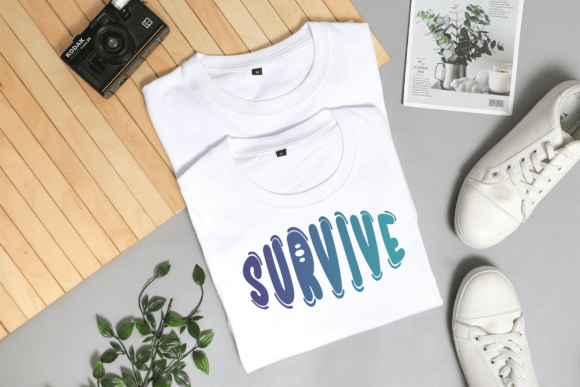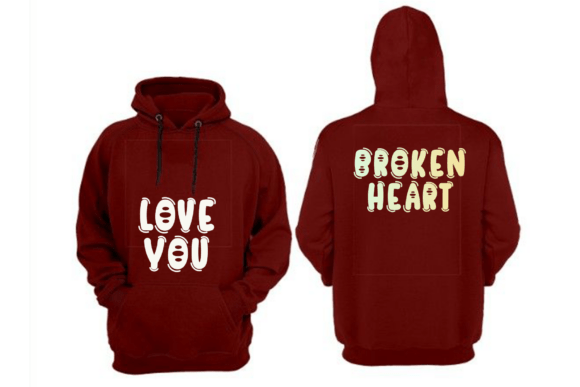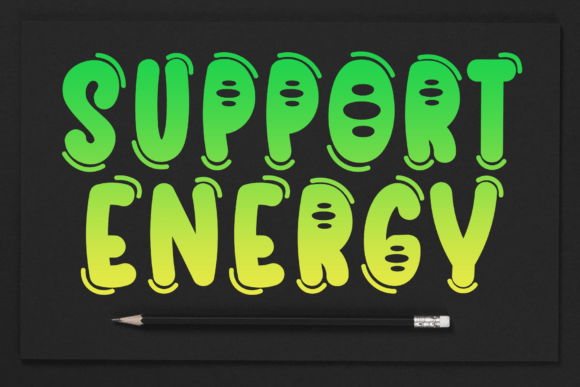
Introduction to Color Child Font
As a designer, there’s nothing quite like the thrill of bringing a creative project to life. But sometimes, it’s the smallest details that can make all the difference. For me, it was the moment I stumbled upon the Color Child Font – a joyful and playful display font that instantly captured the essence of childhood wonder.
With its bold, rounded letters accented by animated shapes and vibrant color layering, the Color Child Font is the perfect design resource for anyone looking to add a dose of youthful charm to their work. Whether you’re creating educational materials, playful branding, or birthday invitations, this high-quality font is sure to bring a smile to your audience’s faces.
Key Features of Color Child Font
- High-quality design resource for creative projects, perfect for illustrators, designers, and artists.
- Features a unique, colorful design that adds a playful touch to any creative project.
- Perfect for use in digital art, graphic design, web design, and other creative fields where a vibrant, colorful design is desired.
Honest Review: Color Child Font
I recently stumbled upon the Color Child Font and I must say, I’m quite impressed. As a designer, I’m always on the lookout for high-quality design resources to elevate my creative projects.
Here are some things that work well:
- ✨ The font is incredibly versatile and can be used for a wide range of creative projects.
- ⚠️ The font may not be suitable for formal or professional designs, as it has a more playful tone.
- ⚠️ The font may not be as customizable as some other design resources, but it’s still a great option for many projects.
Overall, I’m a big fan of the Color Child Font. It’s a high-quality design resource that’s perfect for adding a touch of creativity to your projects. I highly recommend giving it a try!
Tips for Getting the Most Out of Color Child Font
Use Color Child Font for headings and titles to add a touch of whimsy to your design. Experiment with different font sizes and styles to create visual interest. Also, consider using a transparent background to give your design a clean and modern look.
Color Child Font is perfect for use in children’s book illustrations, party invitations, and other creative projects that require a playful and imaginative touch. You can also use it in logos, branding materials, and other design elements where a high-quality, free download font is needed.